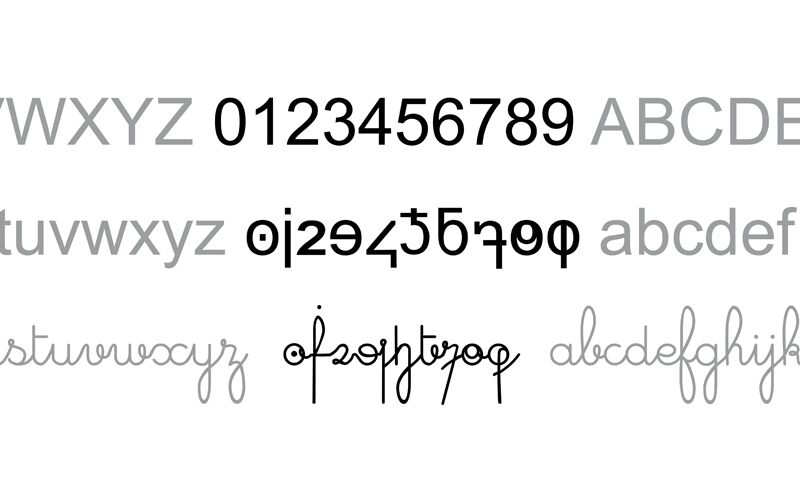
Cursive Digits by Cédric Dequidt is a free non-Latin script-style display font with tightly drawn, connected forms. Rounded turns and tapered strokes give the lettering a fluid silhouette, with compact shapes that resemble decorative number marks. The uneven joins keep the design lively rather than formally typeset.
Poster titles are its most convincing role, particularly for events built around puzzles, mathematics, codes, or experimental graphics. The same flowing marks can become part of game artwork, music merchandise, and editorial illustrations, where the lettering reads as both text and ornament.
This is not a new font; it is a new way of writing.
It introduces lowercase and cursive forms of digits.